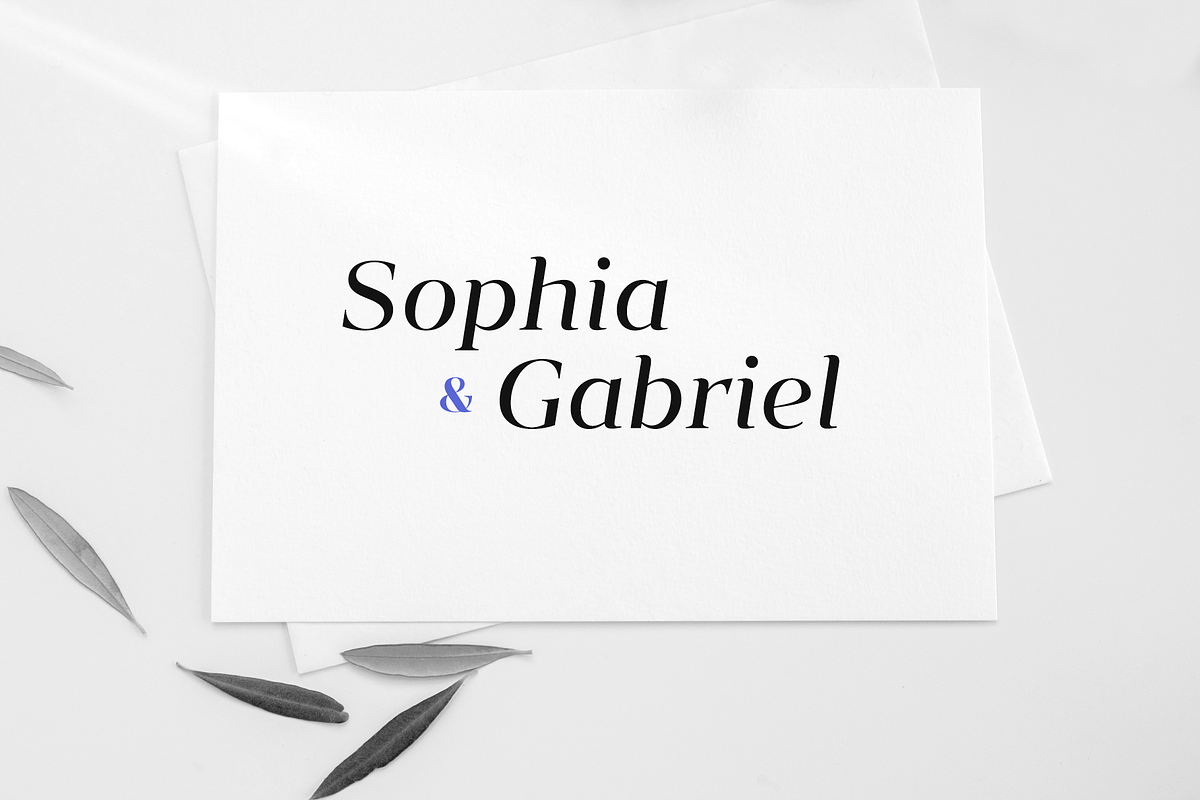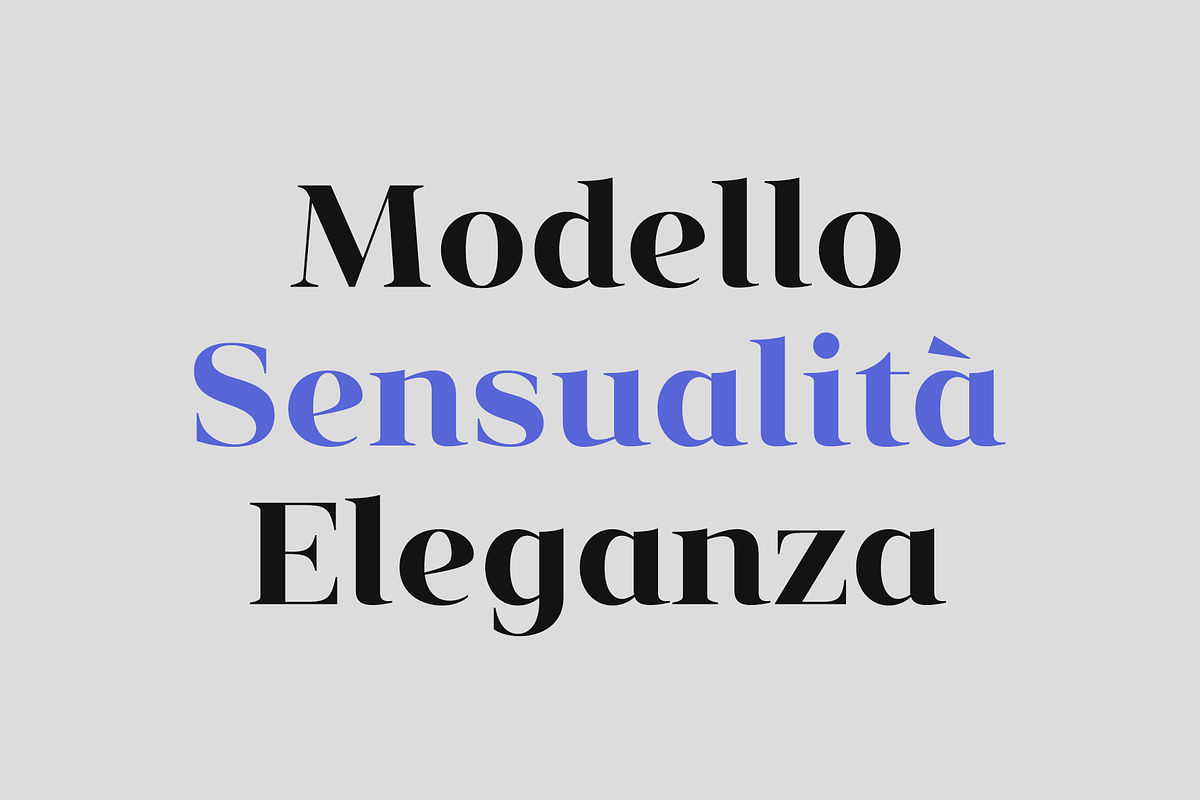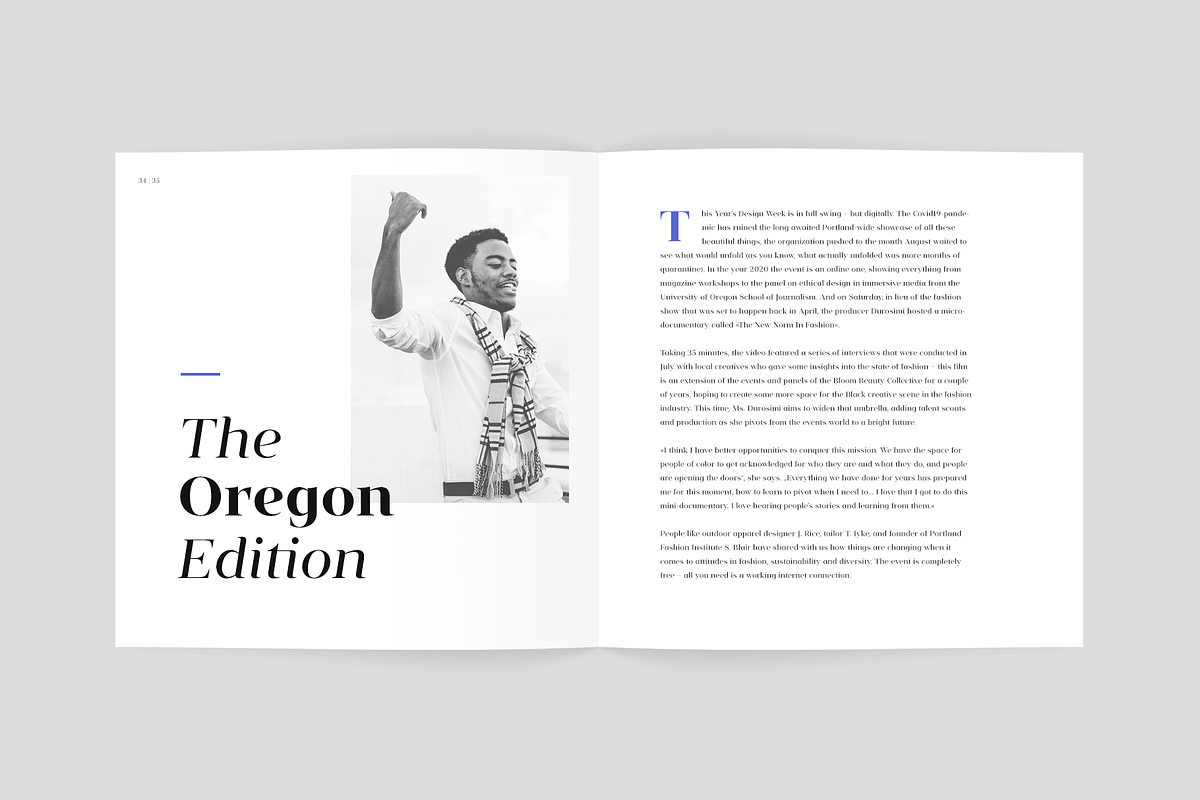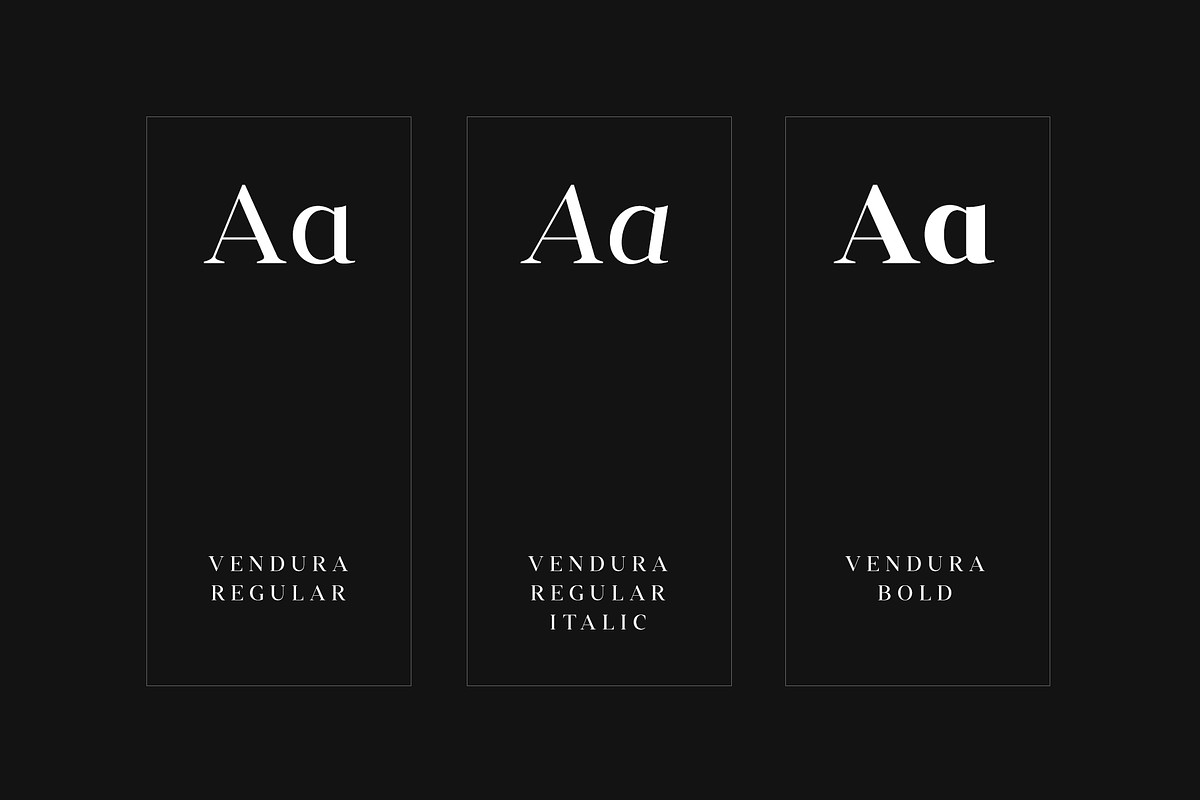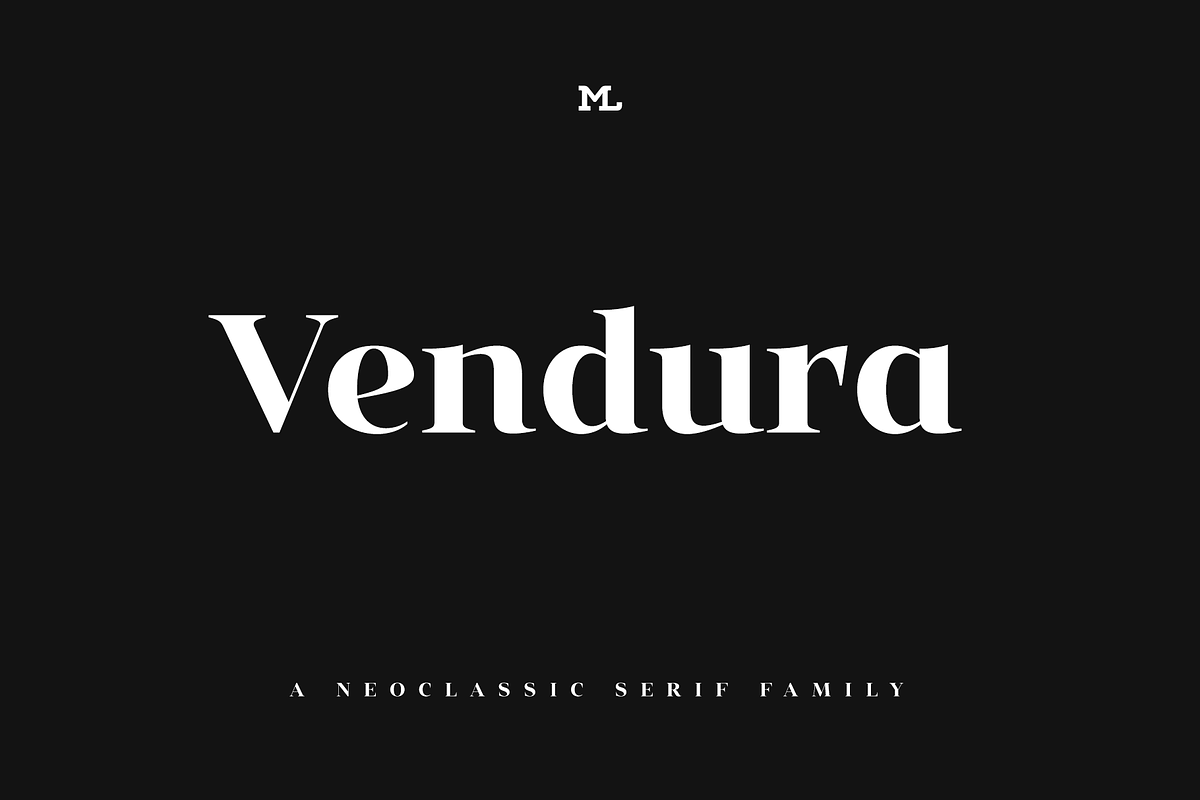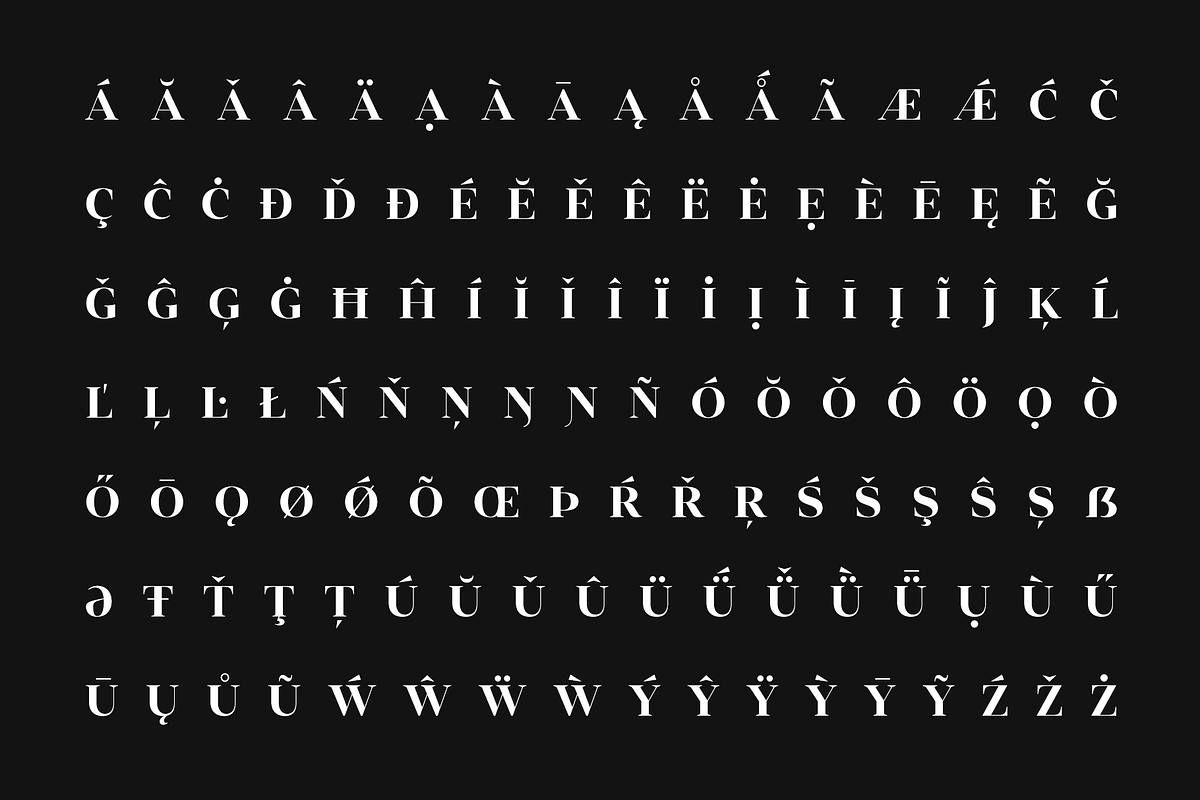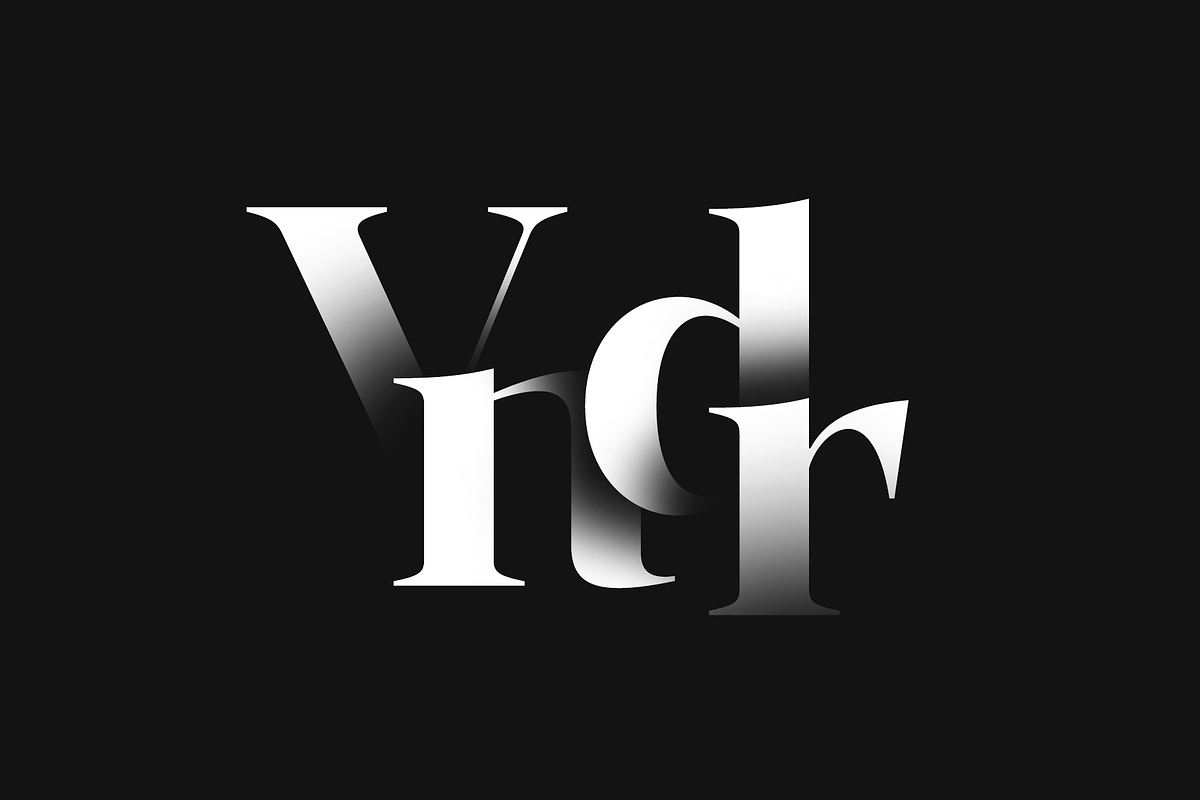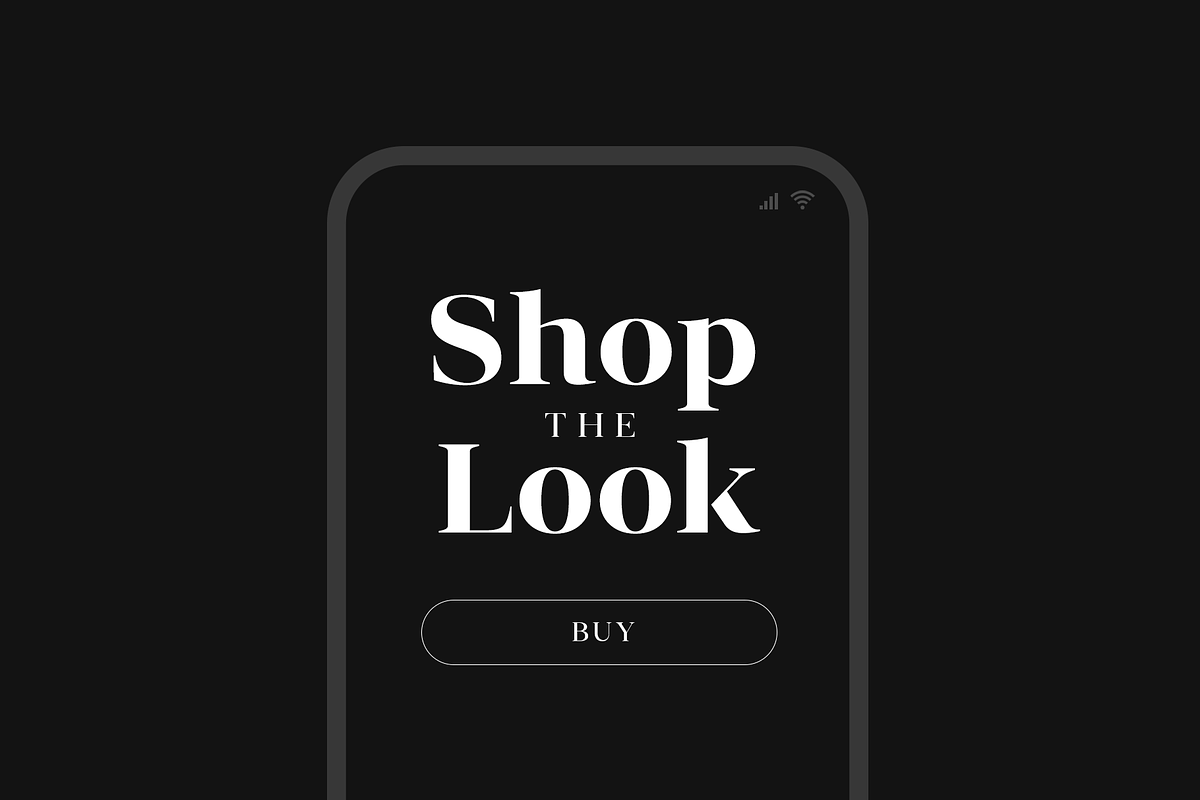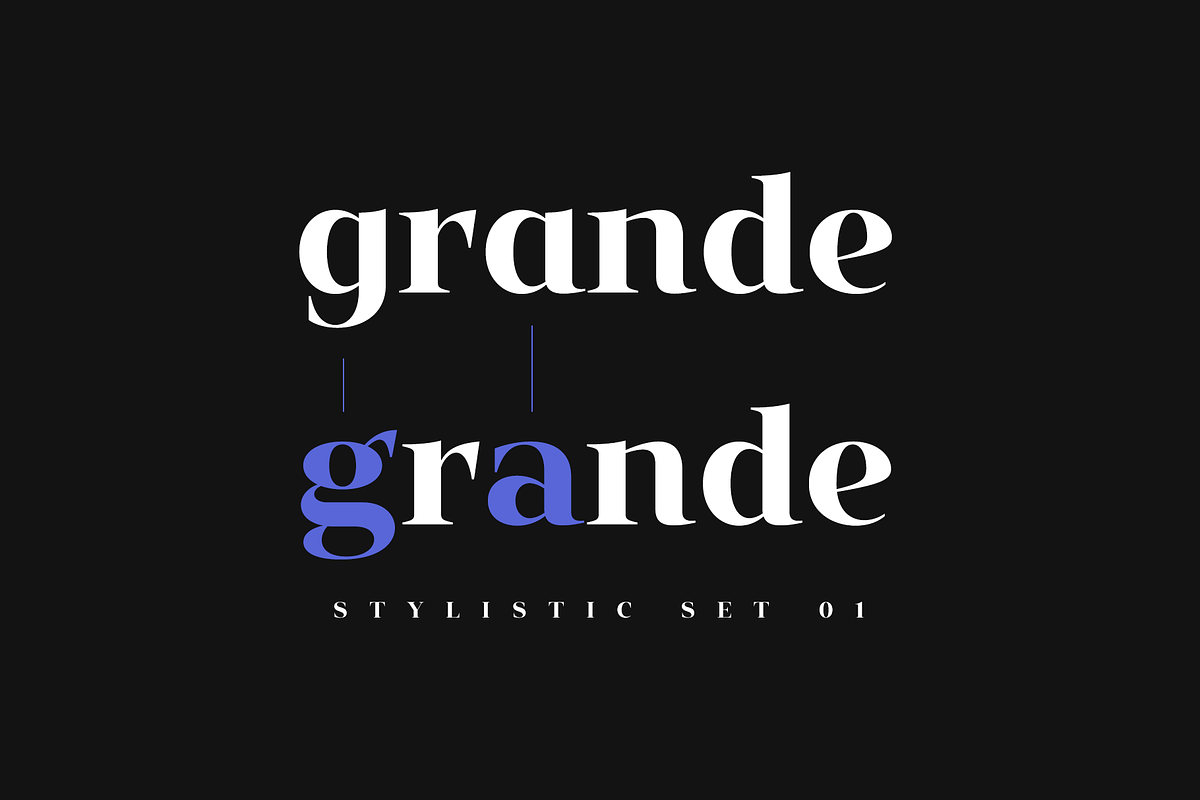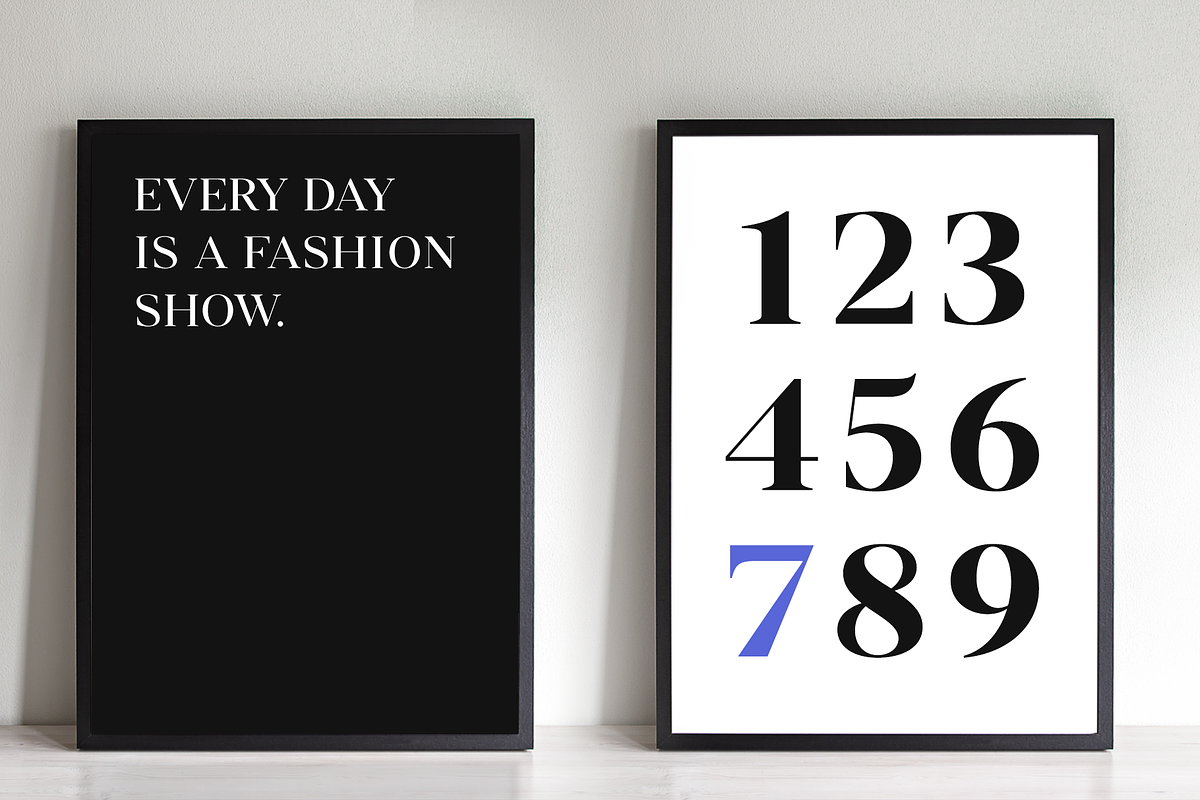
Vendura – Neoclassic Serif Family
Meet Vendura, an elegant serif-family with a modern touch.
- 3 weights
- 625 glyphs per weight
- 200+ languages covered
- stylistic alternates
- many numerical variations
- arbitrary fractions
- automatic arrows
- and more!
Design
While being a homage to the beloved high-contrast didone typefaces from the 18th and 19th century, Vendura comes up with some unique design details, giving this family a modern twist. It adds a lot of personality to any Editorial Design, Branding Project or User Interface. The seven weights of Vendura have lots of crisp sharp edges, while its matching italics create a slightly softer and warmer look.
Functionality
Vendura has an extensive character set to offer, covering more than 200 languages. Plus, there are ligatures, stylistic alternates, numerical variations, automatic arrows and so much more to find, making sure it can catch up with all your typographic demands. Offering 625 glyphs per font, Vendura is a truly versatile companion for your next design project.